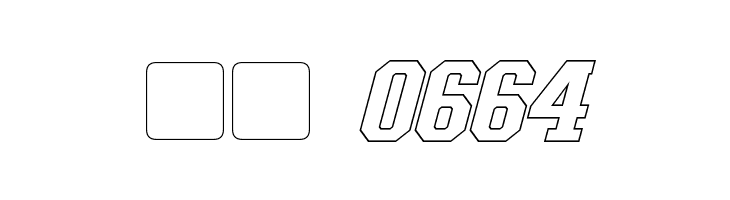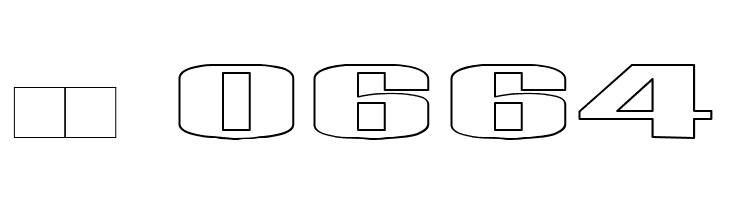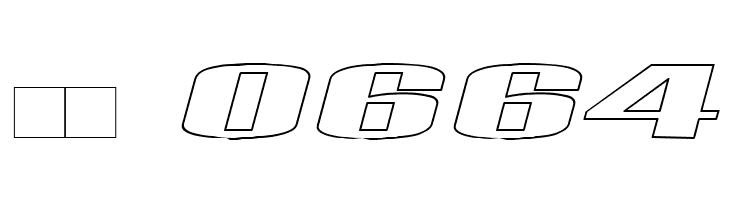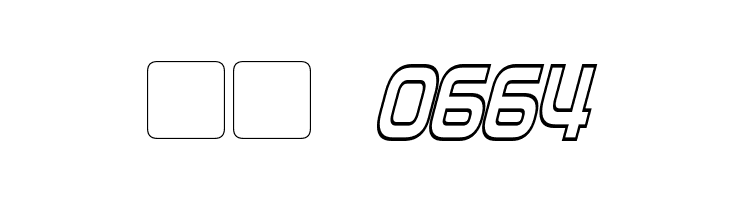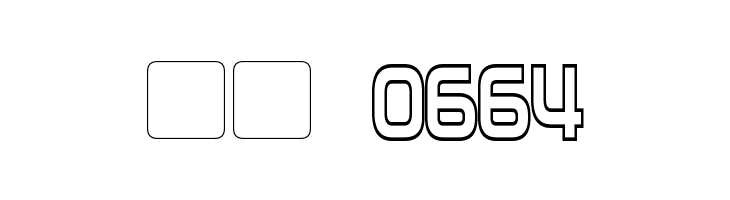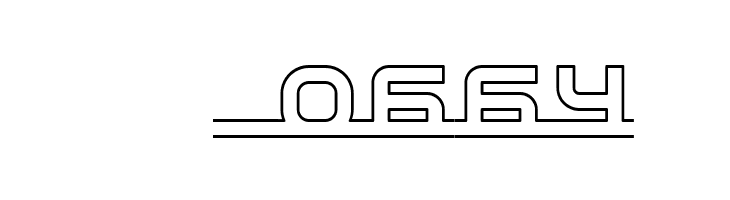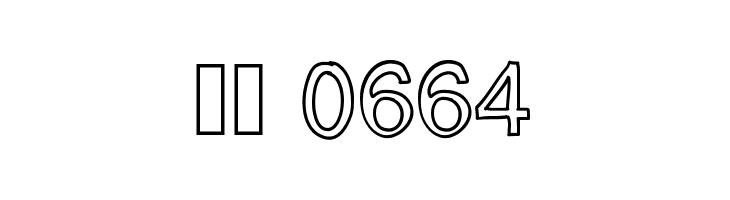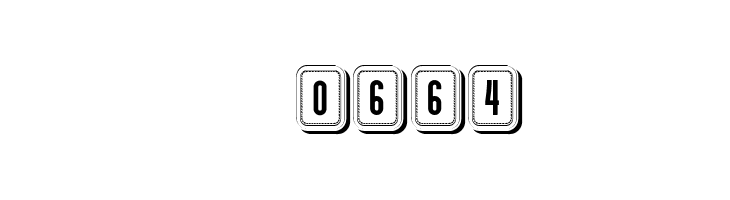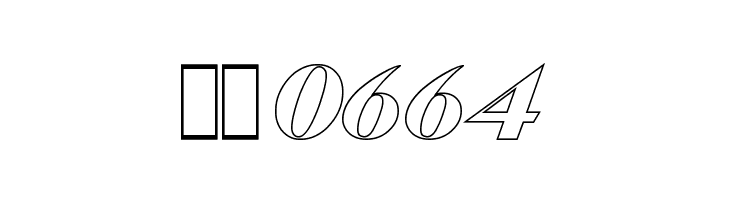
A bold, decorative font with keyhole-like shapes and rounded edges.
A bold, hollow font with a fragmented, abstract design.
A modern, hollow, geometric font with bold outlines.
A hollow, decorative script-like font with bold outlines and artistic flair.
A mysterious, hollow font with an ancient, coded appearance.
A modern, hollow sans-serif font with clean, outlined characters.
A modern, italicized hollow font with smooth curves and rounded edges.
A bold, italicized font with a hollow interior and geometric design.
A bold, hollow, geometric font with a strong, uniform appearance.
A geometric, hollow font with angular and futuristic elements.
A modern, hollow, outlined font with a bold, geometric style.
A modern, italic hollow font with clean lines and geometric structure.
A playful, hollow, hand-drawn font with a whimsical and lighthearted style.
A modern, connected hollow font with geometric shapes and consistent stroke width.
A bold, hollow font with a modern, geometric design.
A bold, hollow, italic font with a modern and dynamic style.
A bold, hollow, and three-dimensional decorative font with a modern look.
A geometric, hollow font with a bold and modern design.
A bold, decorative font with hollow, layered outlines and a whimsical style.
A playful, geometric font with hollow, circular elements.
A bold, hollow font with a 3D effect and patterned interiors.
A playful, decorative font with hollow, spiral-like elements resembling snail shells.
A modern, hollow font with decorative, nature-inspired elements.
A modern, hollow, and decorative font with unique leaf-like elements.
A bold, decorative font with hollow interiors and geometric patterns.
A bold, hollow font with geometric shapes and a modern, futuristic style.
A bold, geometric font with a hollow, three-dimensional effect.
A bold, half-hollow font with a modern, geometric design.
A bold, geometric font with a hollow, 3D block design.
A geometric, hollow font with intricate, maze-like patterns.
A bold, hollow font with a vintage, three-dimensional style.